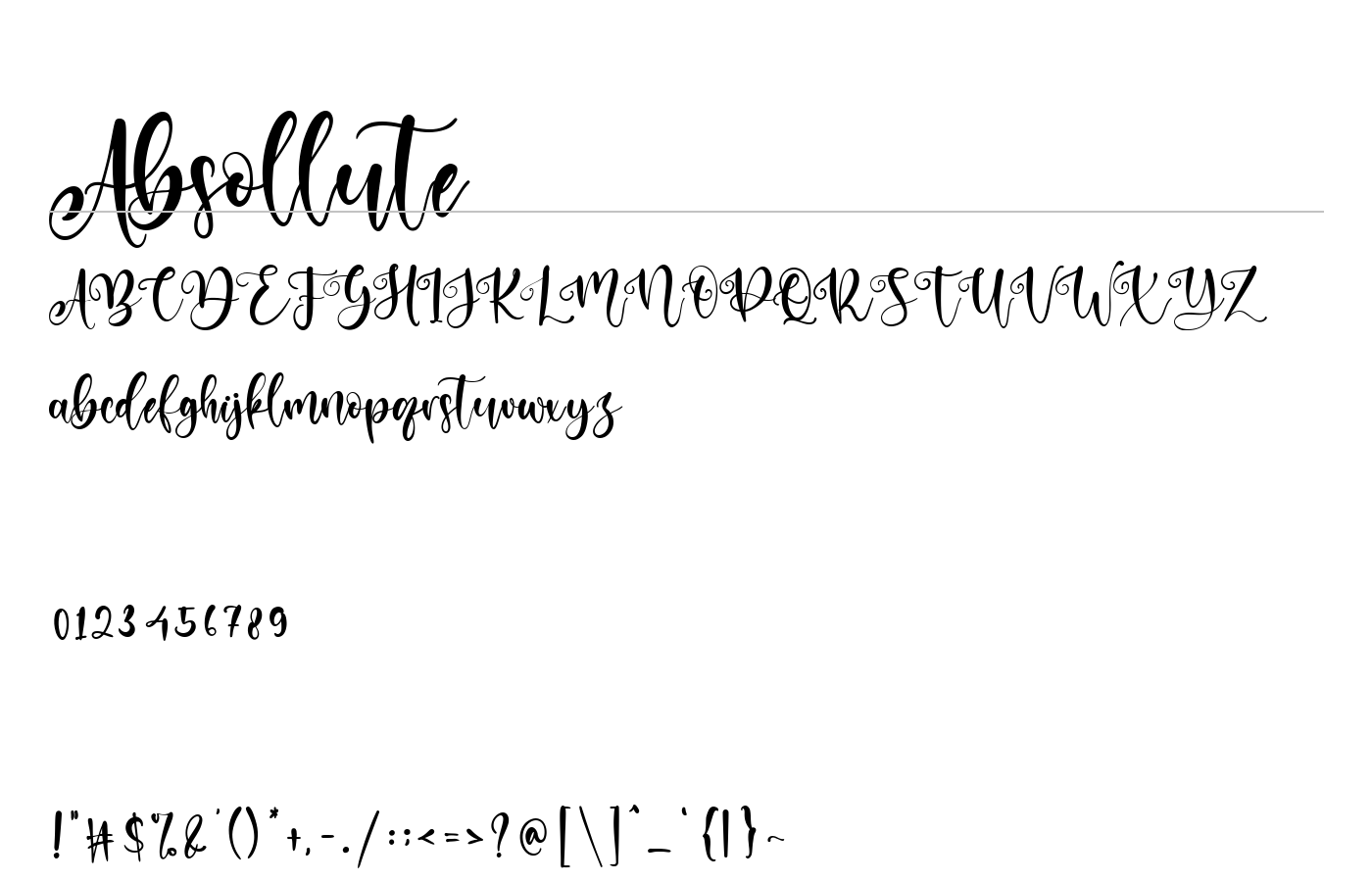
Absollute is a stylish script font with elegant, flowing letterforms that combine playful curls and smooth strokes, giving it a hand-lettered feel. Its medium weight and moderately high x-height make it both eye-catching and readable, ideal for adding a sophisticated, artistic touch to branding, invitations, and decorative designs. This font works beautifully for projects that seek a modern yet charming and personal vibe.
Absollute Font
About Absollute Font